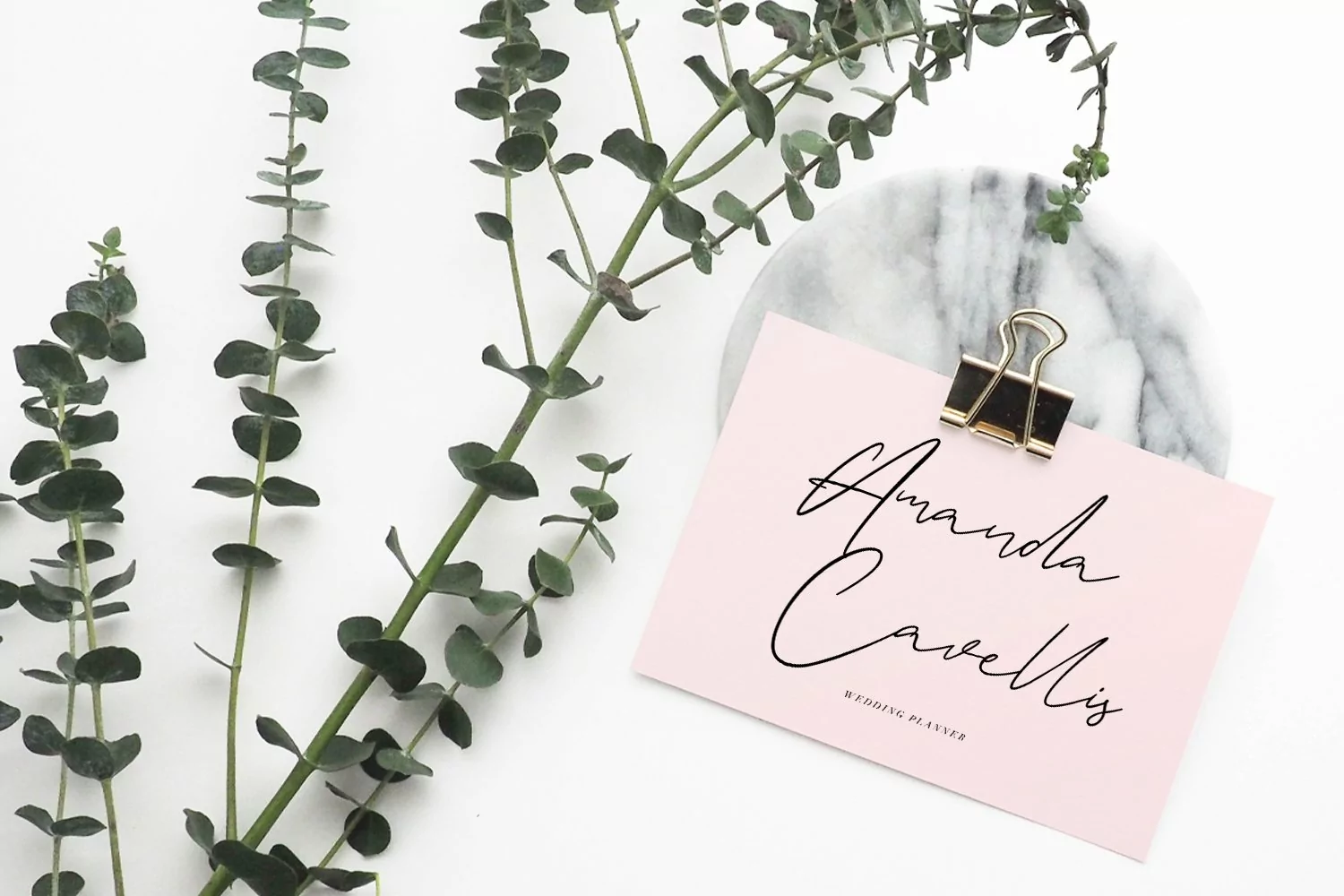
Jifstone Signature Handmade Font
Jifstone is a signature casual and clean stoke font with extra lowercase alternate and opentype features Ligatures inspired by the 60's signature letterform from the movies. It support multilingual more than 100+ language. This font is suitable for logo design and any awesome project you create. Make stunning work with Jifstone signature font.
Give your designs an authentic handcrafted feel. Jifstone Signature Handmade Font is perfectly suited to logo, stationery, branding, typography quotes, magazine or book cover, website header, clothing, branding, packaging design, restaurant and more.